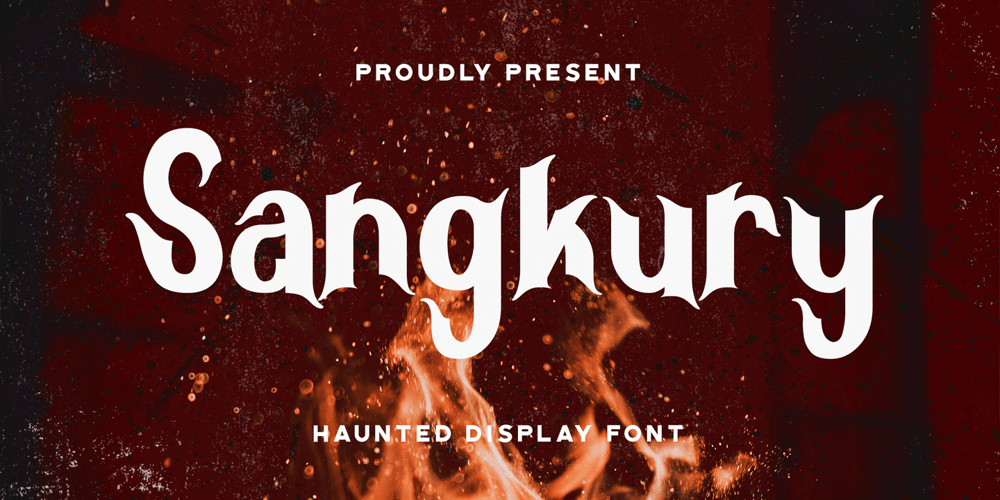
Sangkury Font Family was designed by Virgiawan Listanto and published by Stringlabs Creative Studio. Sangkury contains 1 styles and family package options. Sangkury is a unique display font. It features a spooky feel that makes it perfect for any project that requires a horror-themed. Use it for movies, flyers, posters, Halloween’s craftings and much more!